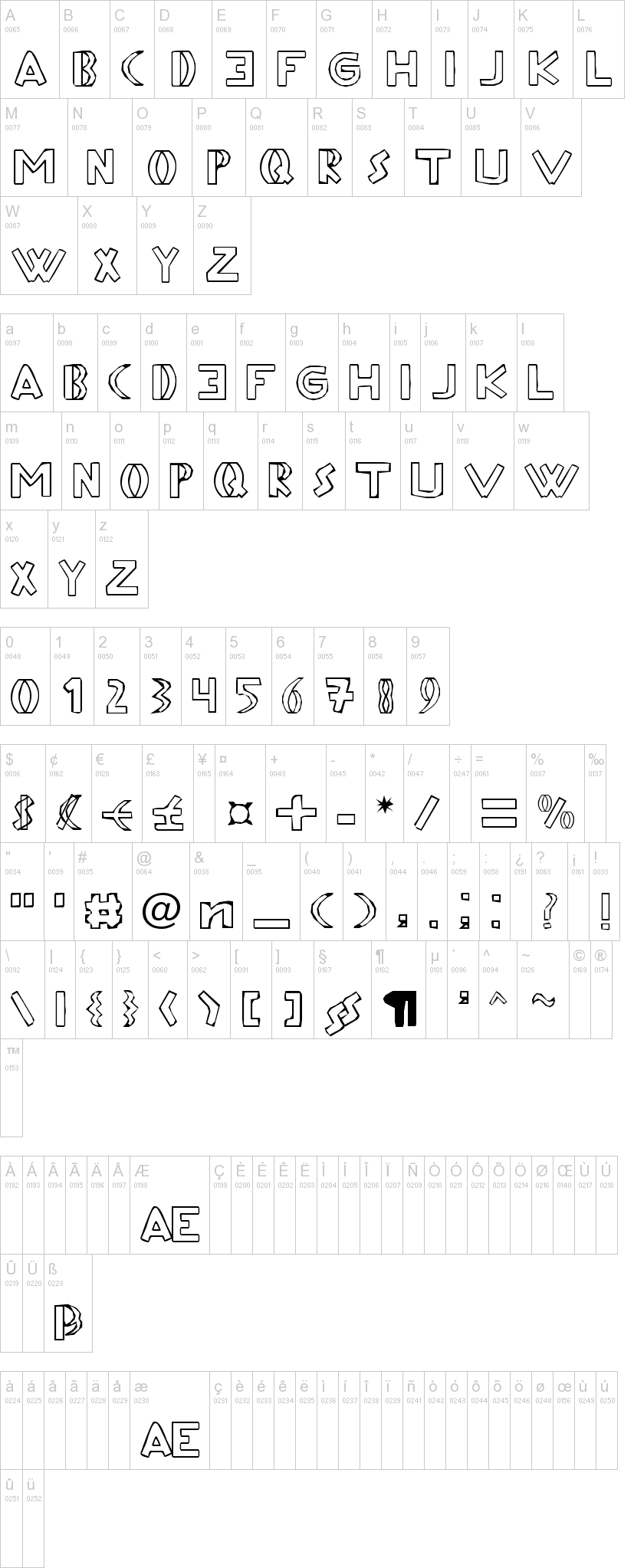
Шрифт Aftermath
This font is a outlined font. It was originally designed for the webpage eminem.sk and for Eminem fans. Copyright 2005 Kubik Juice, kubikjuice.com